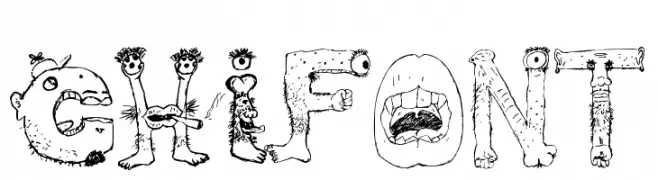
( Fonts by Dhabee Studio )
A bold, jagged, and textured font with an edgy, hand-drawn appearance.
( Fonts by Chidiebere Udogwu )
A whimsical and cartoon-like decorative font with playful character designs.
( Fonts by Typefactoryco )
A bold, playful font with a hand-drawn, artistic style.
( Fonts by Eddy Goodboy )
A decorative font with a skeletal, bone-like design, perfect for edgy and creative projects.
( Fonts by Andi Moz )
A bold, hand-drawn font with an expressive and dynamic style.
( Fonts by Qr Design )
A bold, decorative font with gothic influences and intricate details.
( Fonts by ilhamtaro )
A bold, gothic-inspired font with sharp, angular lines and a rebellious flair.
( Fonts by Andi Moz )
A spooky, jagged font with an eerie, scratchy appearance perfect for Halloween themes.
( Fonts by Misti's Fonts )
A bold, hand-painted style font with a rugged, artistic flair.
( Fonts by Afika Studio )
A whimsical and eerie font with elongated, uneven strokes and playful curls.